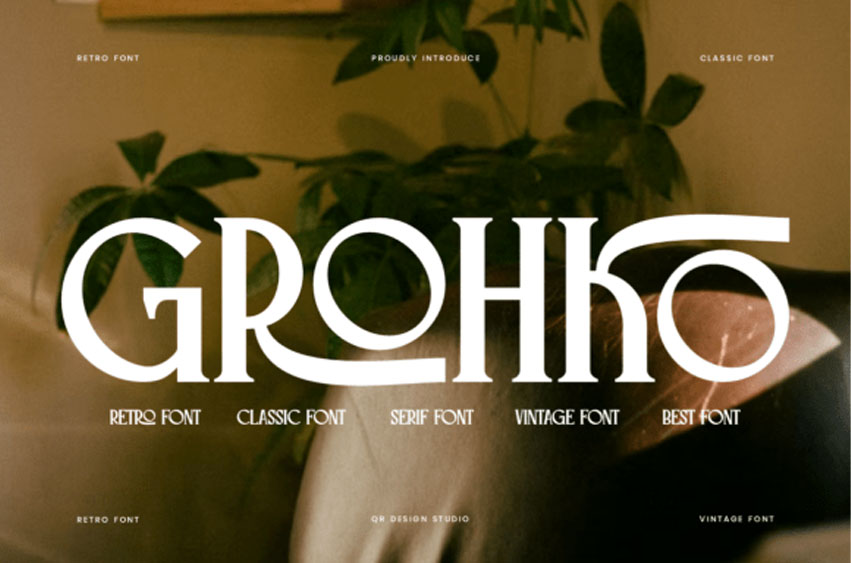
Grohko Font Infuse your designs with timeless elegance, mid-century charm, and sophisticated flair with Grohko, a stunning retro classic serif font.
It is the ideal choice for luxury brand identity, wine label packaging, editorial magazine headers, boutique logo design, romantic wedding invitations, and aesthetic poster layouts.